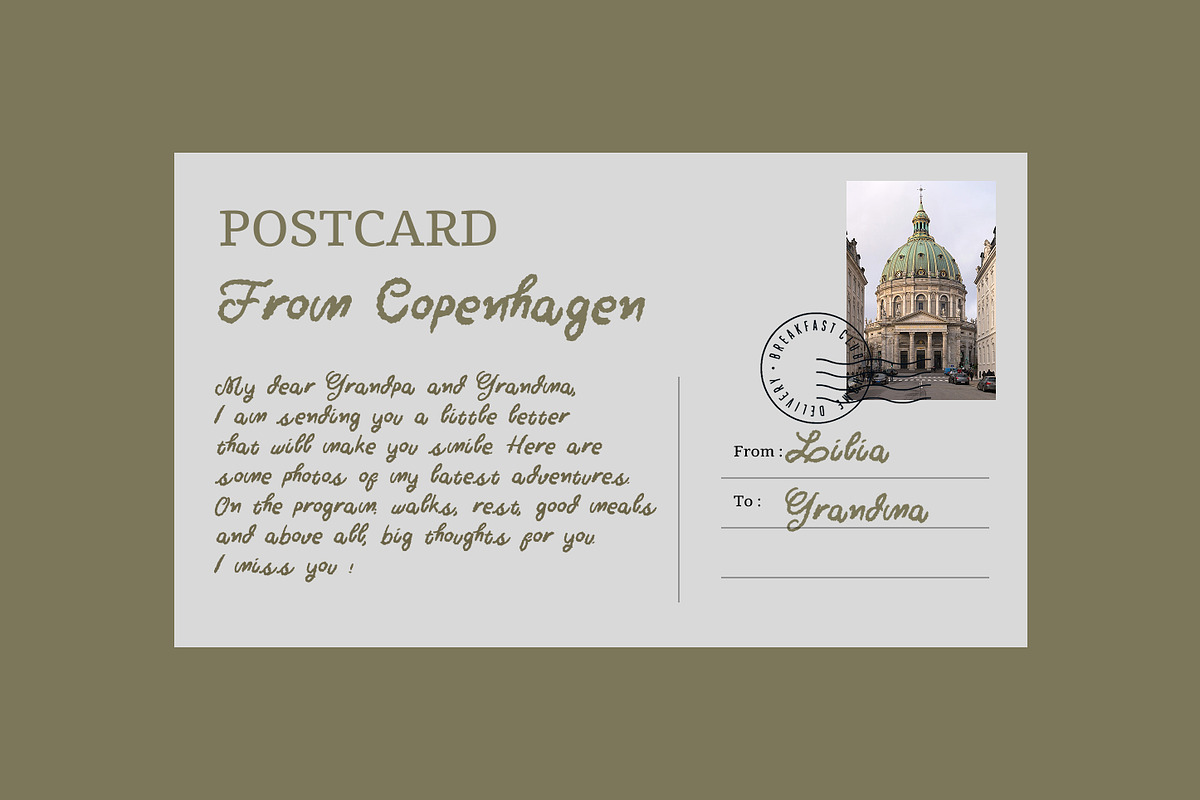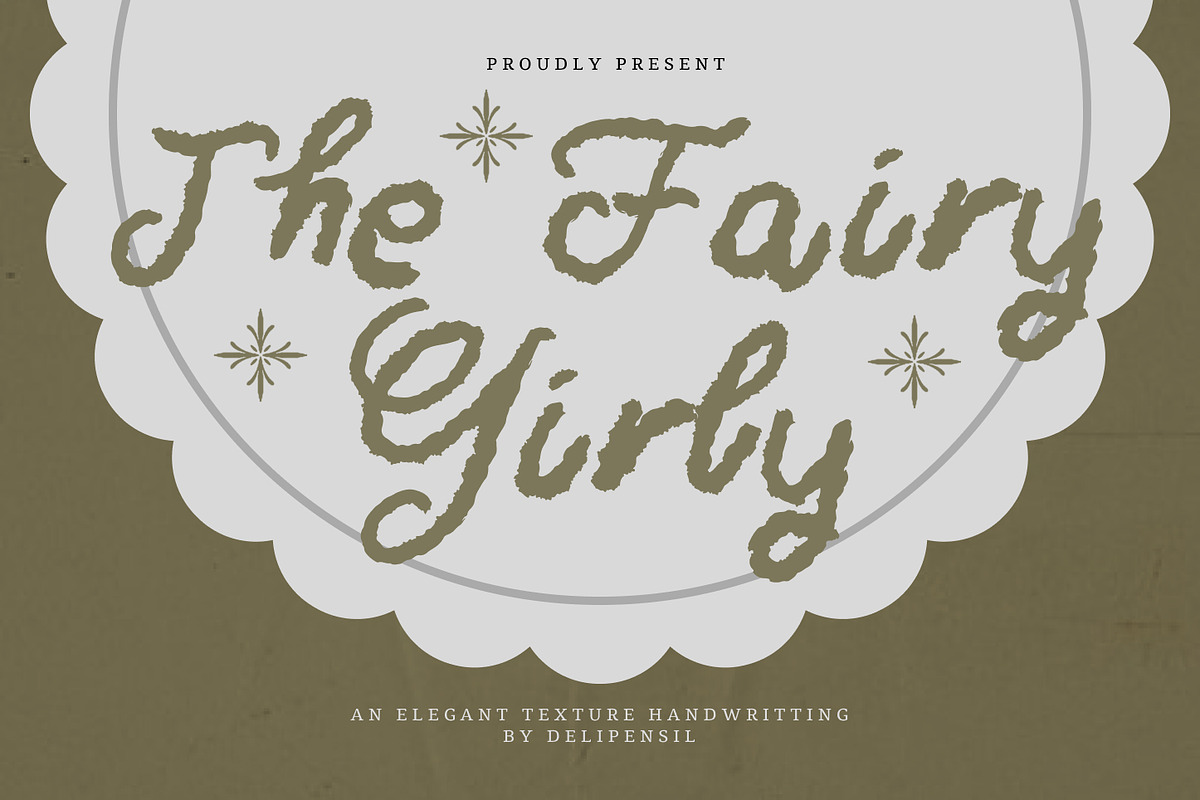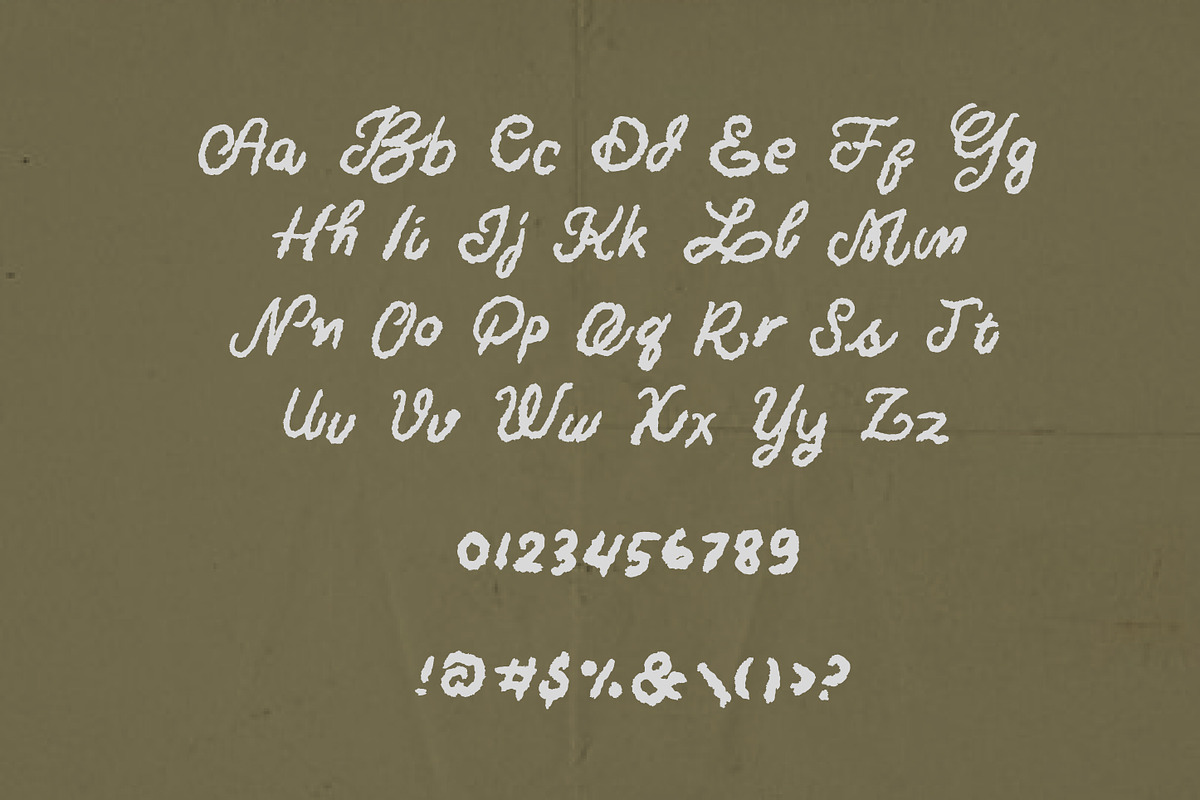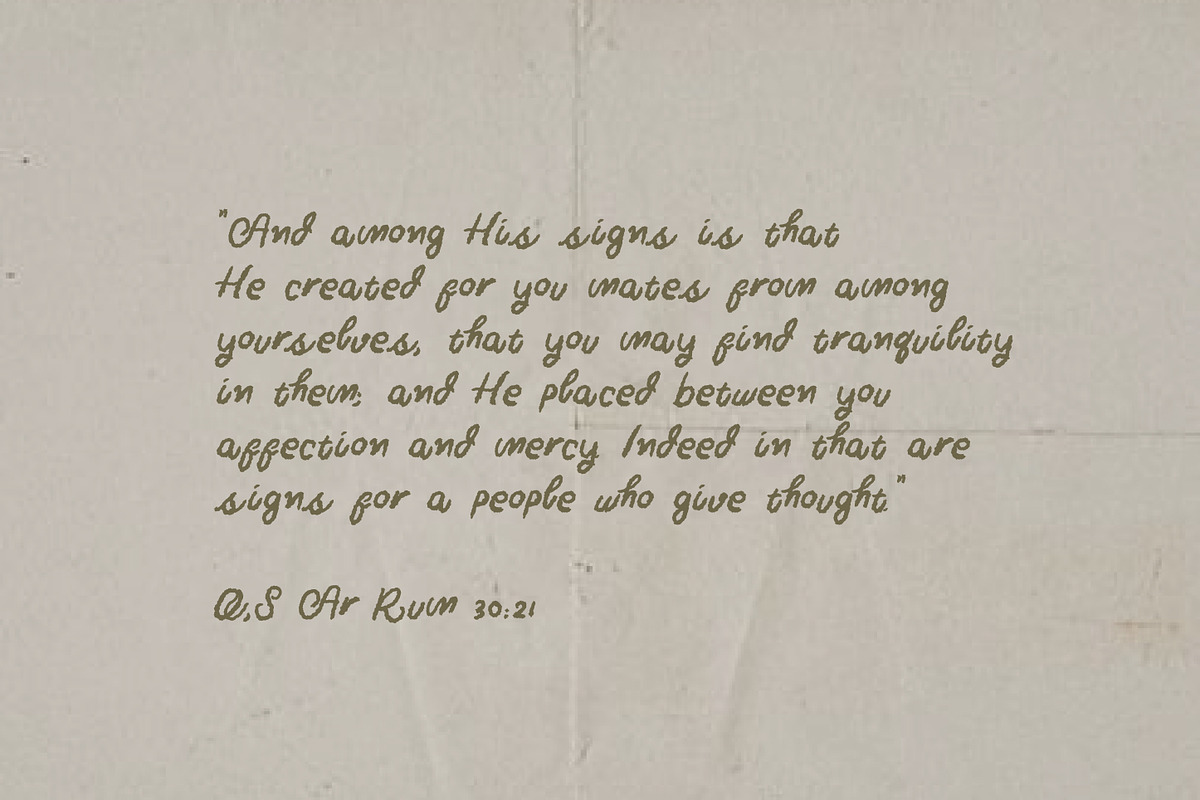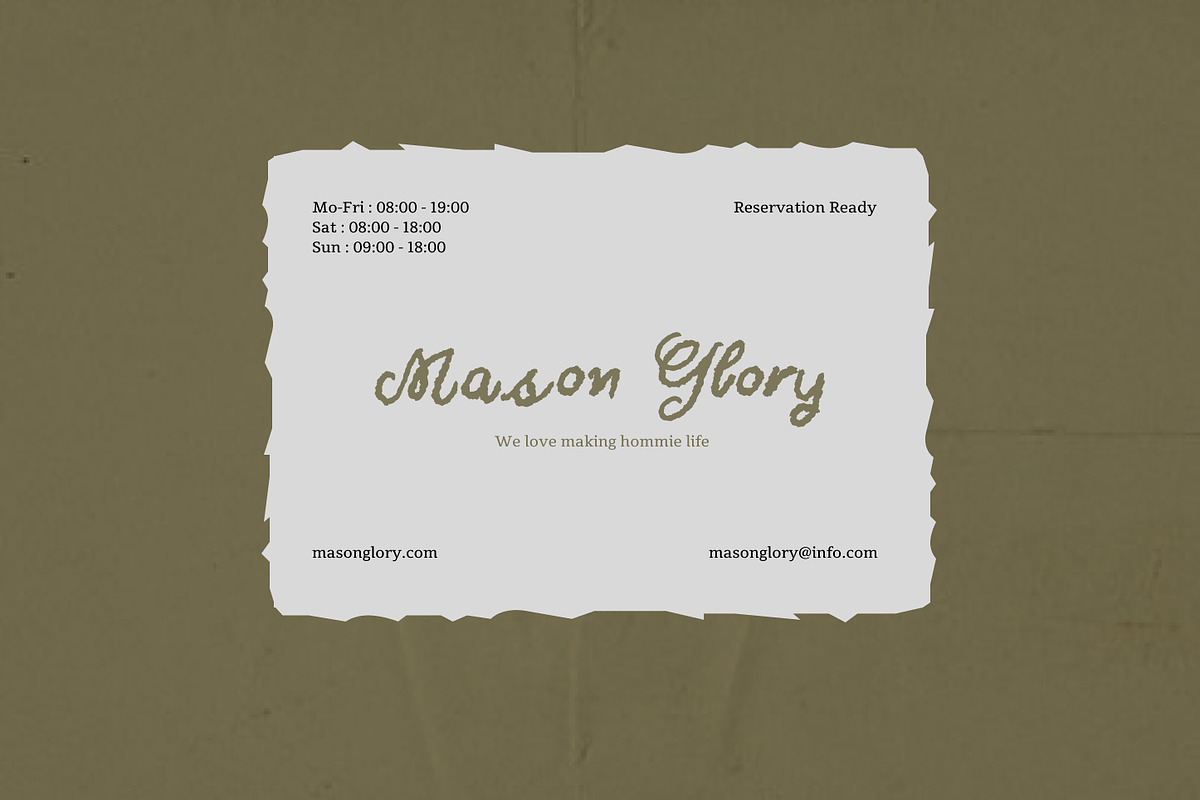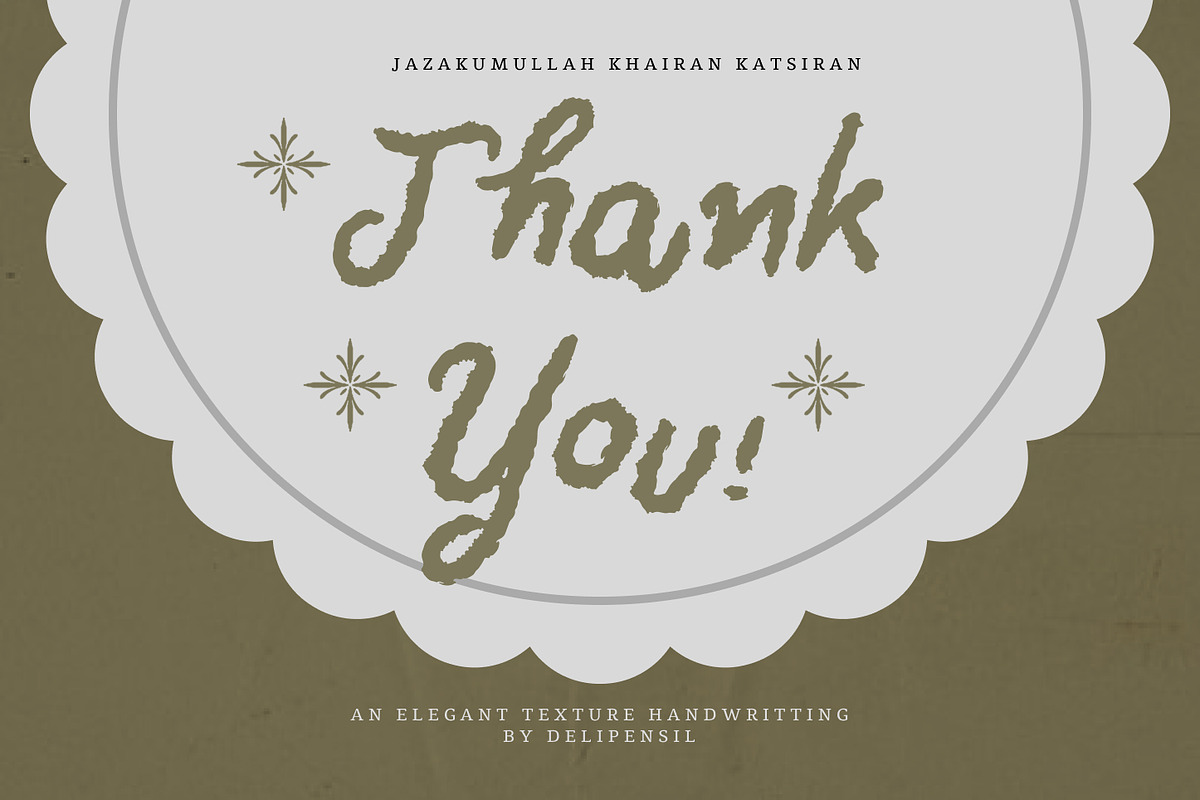
The Fairy Girly - Texture Font
Bismillah Introduction The Fairy Girly is a handwritten textured elegant font that combines natural charm with graceful sophistication. Designed with delicate strokes and an organic handwritten feel, this typeface brings warmth, personality, and elegance to any creative project.
Perfect for branding, logos, invitations, social media posts, packaging, beauty products, wedding designs, feminine branding, quotes, and editorial layouts. Its textured details create an authentic handcrafted appearance while maintaining excellent readability.
Whether you’re creating a romantic wedding invitation, a stylish boutique logo, or charming social media content, The Fairy Girly adds a touch of elegance and handmade beauty to your designs.
Bring a magical handwritten elegance to your next creative project with The Fairy Girly. ✨